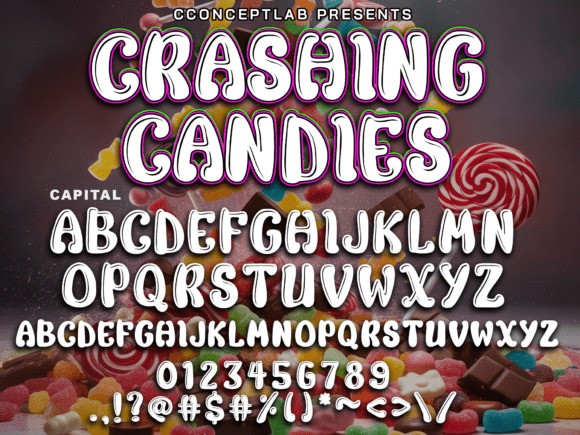
Crashing Candies Font
Crashing Candies Font is an incredibly unique children font. Masterfully designed to become a true favorite, this font has the potential to bring each of your creative ideas to the highest level! With its groovy, cartoon and aesthetic bold look, this font is ideal for branding, theme posters, invitations, posters, inspirational quotes, or merchandise with handwritten stroke vibe.